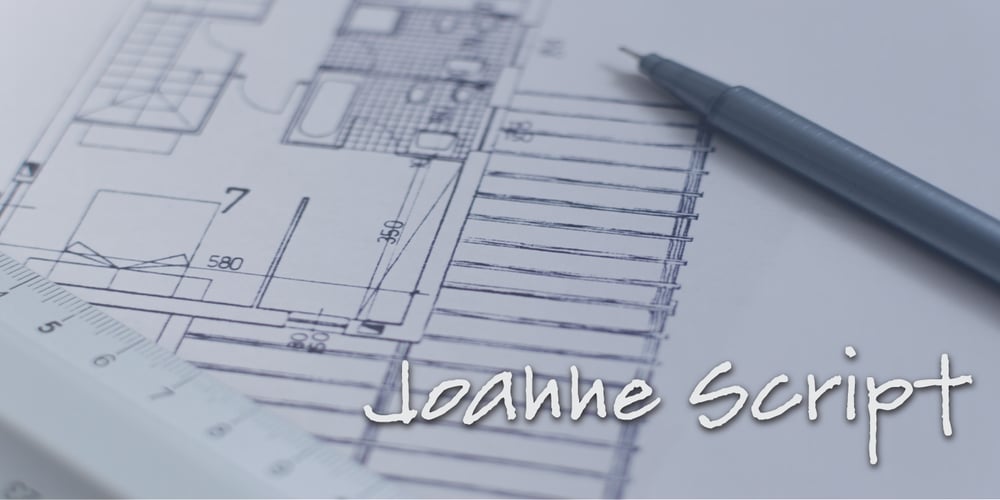
Joanne Script BH
Joanne Script BH font
Joanne Script BH Font Family was designed by Joanne Paul and published by BluHead Studio. Joanne Script BH contains 1 styles and family package options. Joanne Script BH is based on the handwriting of a BluHead friend. This fun design has a sharp, angular feel which lends itself to casual messages, greeting cards, post its, journals, you name it! Plus, a large complement of characters allows you to send your thoughts in multiple languages.